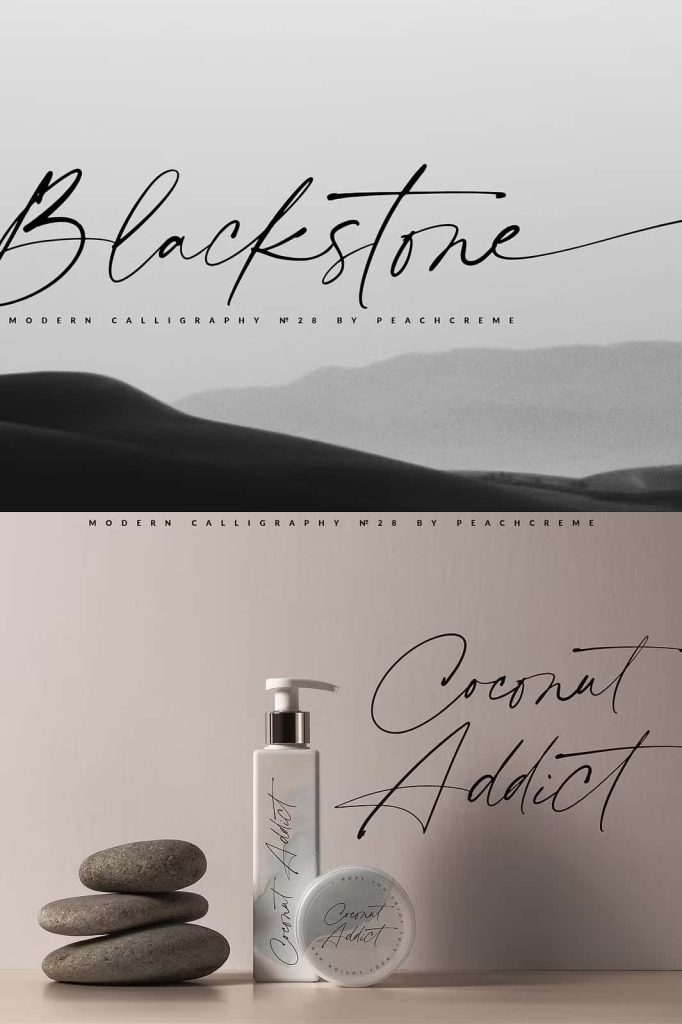
Blackstone Modern Calligraphy Font
Blackstone is a stylish modern calligraphy font that combines elegance, creativity, and casual chic style into one beautiful typeface. Designed with smooth flowing strokes and natural handwritten details, this font delivers a luxurious and authentic appearance that instantly enhances every design project. Whether you want to create premium branding materials, romantic wedding invitations, elegant greeting cards, or sophisticated product packaging, Blackstone gives your typography a refined and artistic touch.
Elegant Handwritten Style for Creative Projects
The graceful curves and natural brush-inspired lines of Blackstone create a modern handwritten look that feels both personal and professional. This font stands out because it balances readability with artistic flair, making it suitable for both digital and print designs. Every letter flows beautifully into the next, helping designers create seamless and eye-catching typography that attracts attention immediately.
Blackstone works exceptionally well for creative entrepreneurs, graphic designers, wedding planners, and branding specialists who want to add a sophisticated handwritten aesthetic to their work. The stylish calligraphy details bring warmth and personality to any project while maintaining a clean and polished appearance.
Perfect Font for Branding and Luxury Design
If you want to build a memorable and premium brand identity, Blackstone can help elevate your visual presentation. Many luxury brands use modern calligraphy fonts to communicate elegance, exclusivity, and creativity. Blackstone delivers all these qualities through its smooth letterforms and stylish composition.
This modern calligraphy font is ideal for:
Brand Logos
Create distinctive and elegant logos with a handwritten signature style. Blackstone adds a luxurious and personal feel that makes your brand identity more memorable and visually appealing.
Wedding Invitations
Blackstone is an excellent choice for wedding stationery because of its romantic and graceful appearance. Use it for invitation cards, RSVP designs, save-the-date cards, menu cards, and wedding signage to create a timeless and sophisticated atmosphere.
Greeting Cards and Invitations
Add a stylish handwritten touch to birthday invitations, holiday cards, baby shower invitations, and special event announcements. The font creates a warm and elegant presentation that feels personal and creative.
Luxury Packaging and Labels
Blackstone looks stunning on luxury packaging designs, especially for beauty products, perfume boxes, candle labels, and wine packaging. Its elegant calligraphy style enhances product presentation and creates a premium customer experience.
Modern Calligraphy with Versatile Applications
One of the strongest features of Blackstone is its versatility. Designers can use this font across many industries and creative projects without losing its stylish charm. From fashion branding to social media graphics, Blackstone adapts beautifully to different design styles and marketing materials.
The font pairs perfectly with minimalist serif fonts, modern sans-serif typefaces, and elegant script combinations. This flexibility allows designers to create balanced layouts that feel modern, professional, and visually engaging.
Why Choose Blackstone?
Blackstone offers more than just beautiful lettering. It provides a complete visual experience that helps designers communicate emotion, sophistication, and creativity through typography. The flowing handwritten strokes create a natural signature effect that feels authentic and premium.
Here are some reasons why designers love using Blackstone:
- Elegant modern calligraphy style
- Beautiful flowing handwritten strokes
- Perfect for luxury and premium branding
- Ideal for wedding and invitation designs
- Professional appearance for print and digital projects
- Versatile for logos, packaging, labels, and social media graphics
- Stylish and easy-to-read typography
Create Stunning Typography with Blackstone
Blackstone helps transform ordinary text into elegant visual artwork. Its modern calligraphy design instantly adds sophistication and creativity to every project, making it an excellent choice for designers who want to produce high-quality and memorable designs.
Whether you are designing a luxury wine label, creating wedding invitations, building a fashion brand identity, or developing stylish social media content, Blackstone delivers the perfect combination of beauty, elegance, and modern handwritten style.